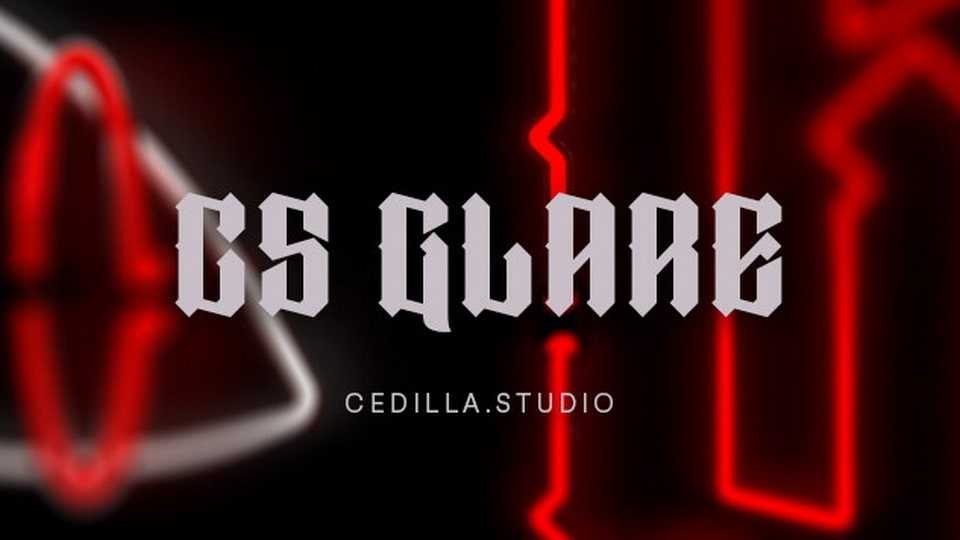
Download CS Glare font, a display typeface inspired by traditional black letter type styles. Glare uses a grid system comprised of a small selection of shapes creating a consistent structure throughout the typeface.
Designer: Cedilla Studio